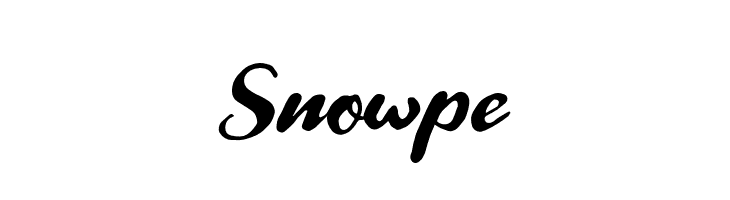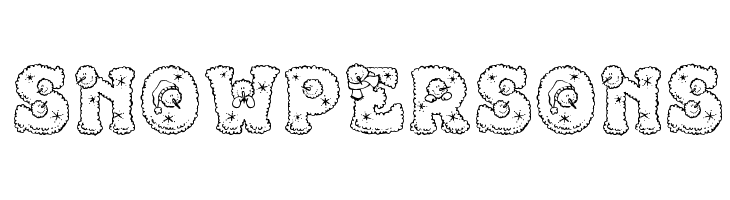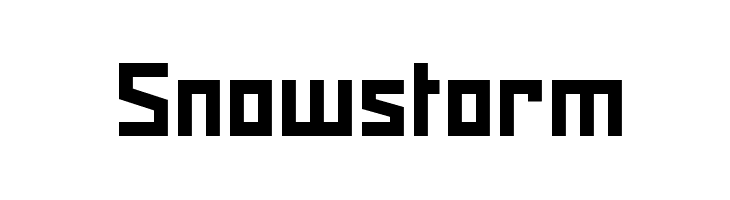
A decorative font with a snowflake pattern, perfect for festive designs.
A bold, energetic script font with a lively and informal style.
A bold, geometric font with decorative snowflake patterns.
A bold, playful font with snowy caps on each character, perfect for winter themes.
A dynamic and expressive handwritten font with flowing, interconnected strokes.
A playful, handwritten font with a casual and friendly appearance.
A playful, casual handwritten font with rounded, consistent strokes.
A playful, hand-drawn font with rounded edges and a casual style.
A modern, artistic handwritten font with dynamic and flowing letterforms.
A dynamic, handwritten font with artistic and fluid strokes.